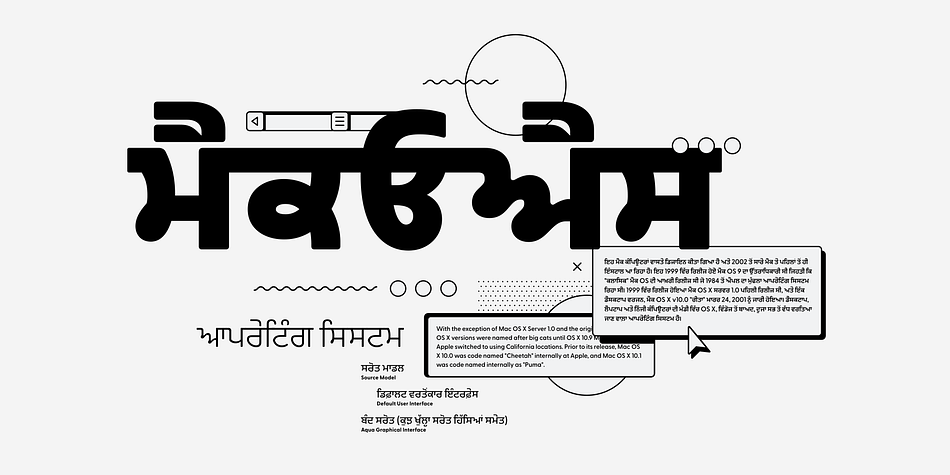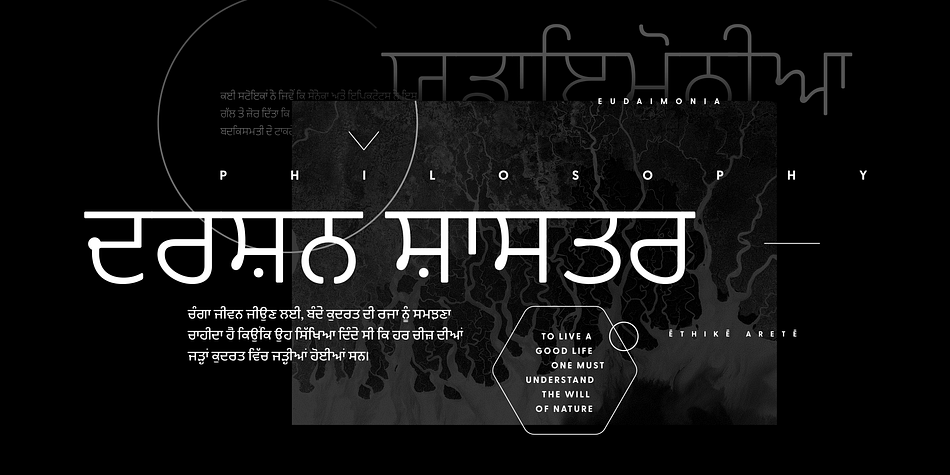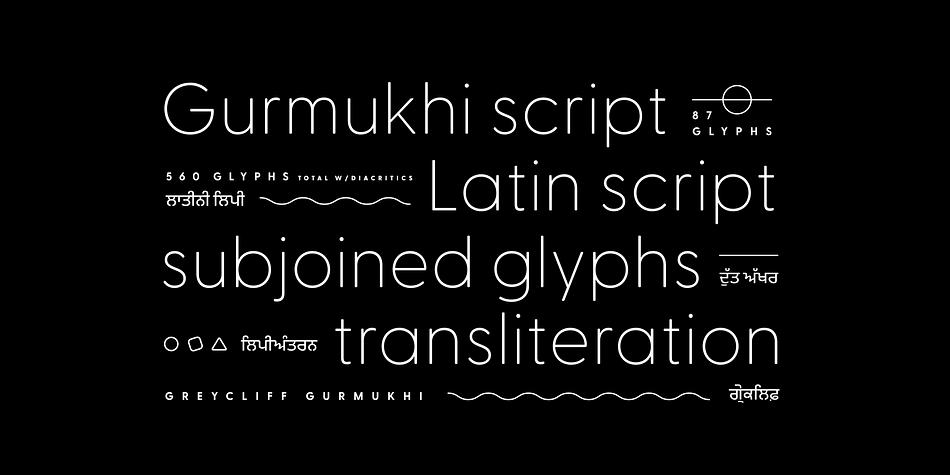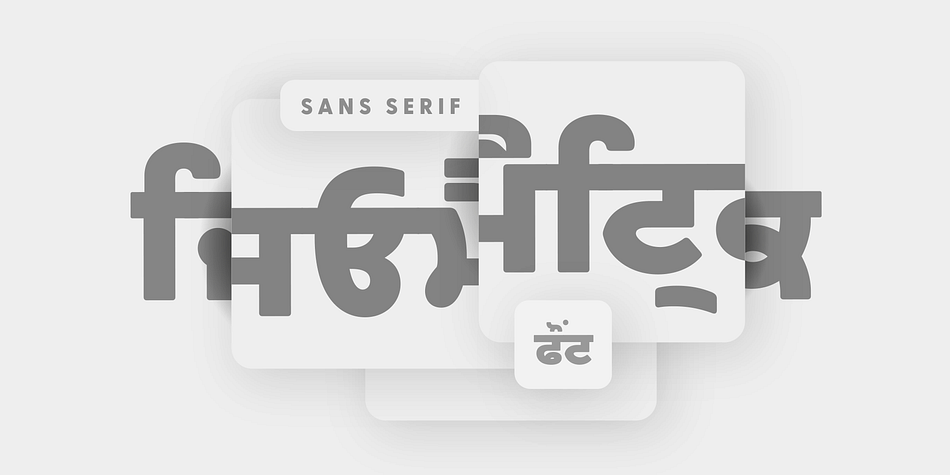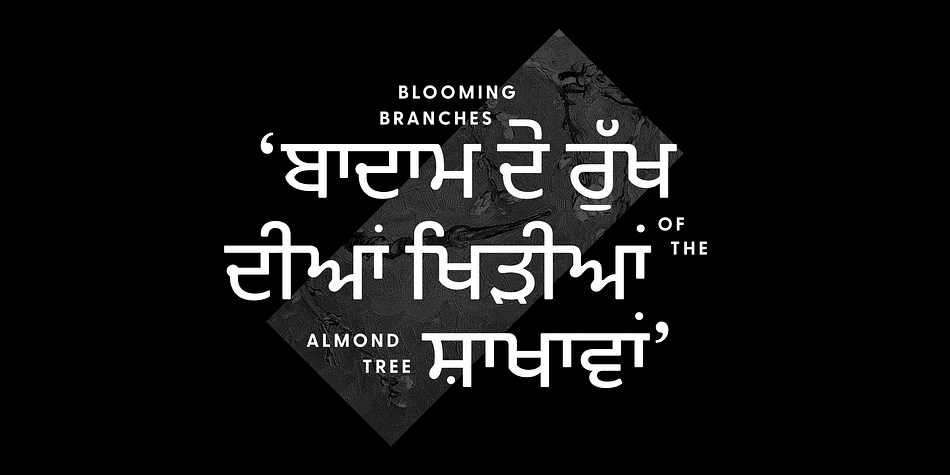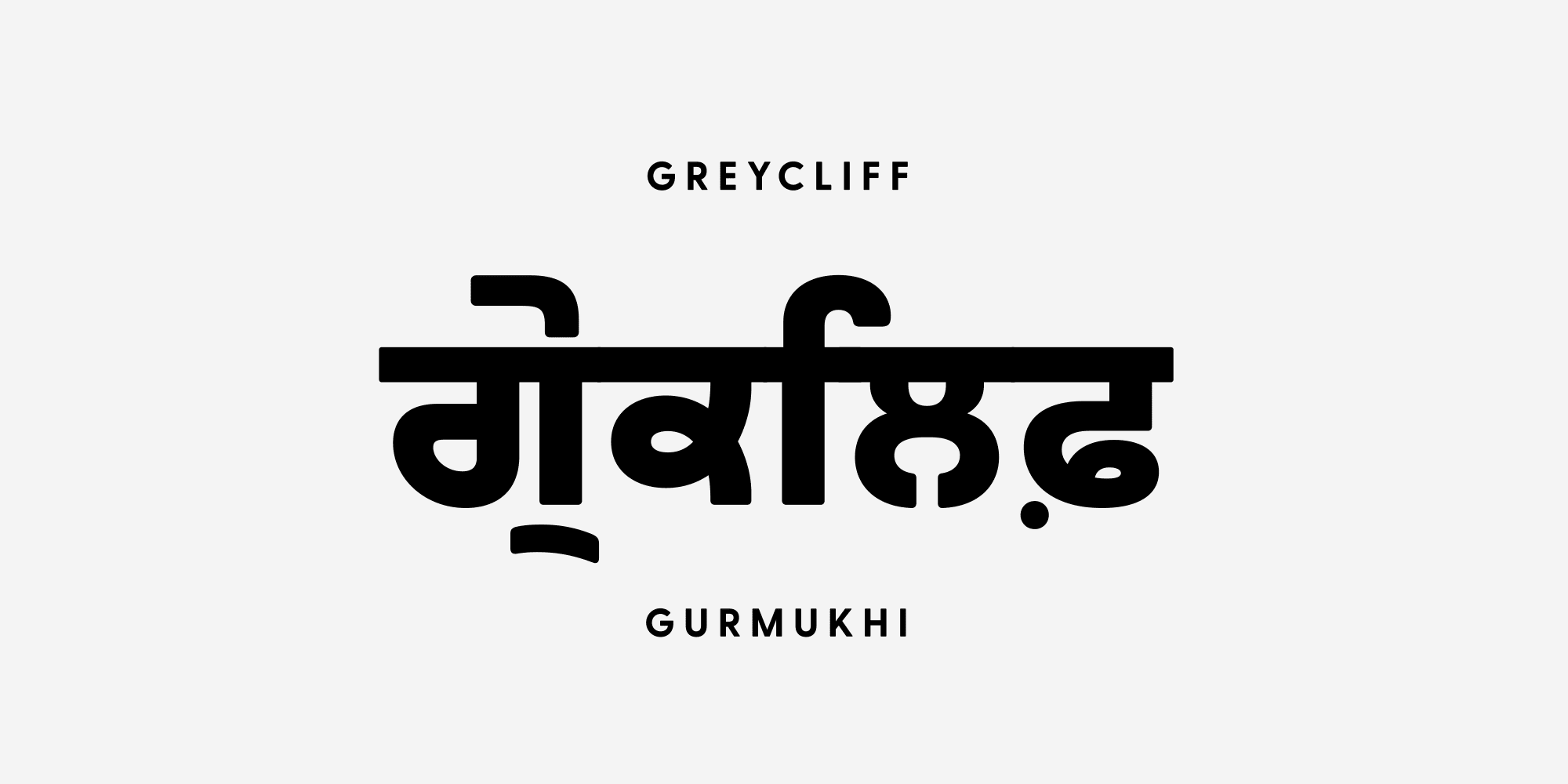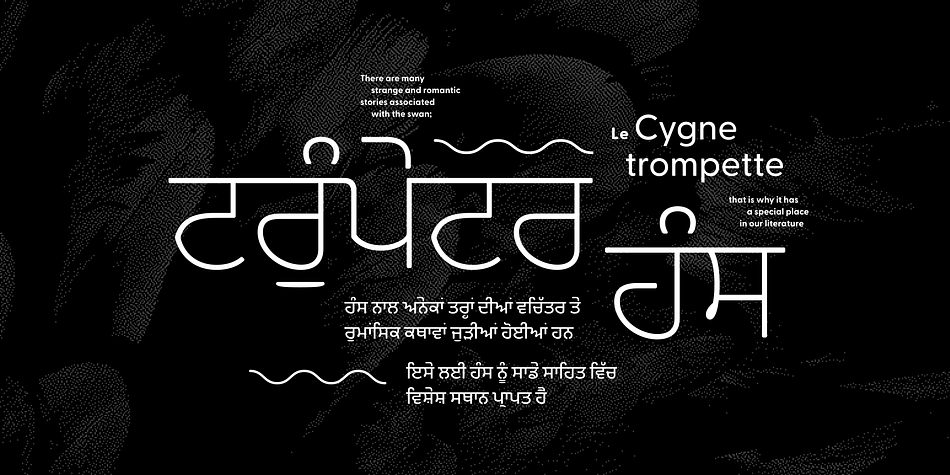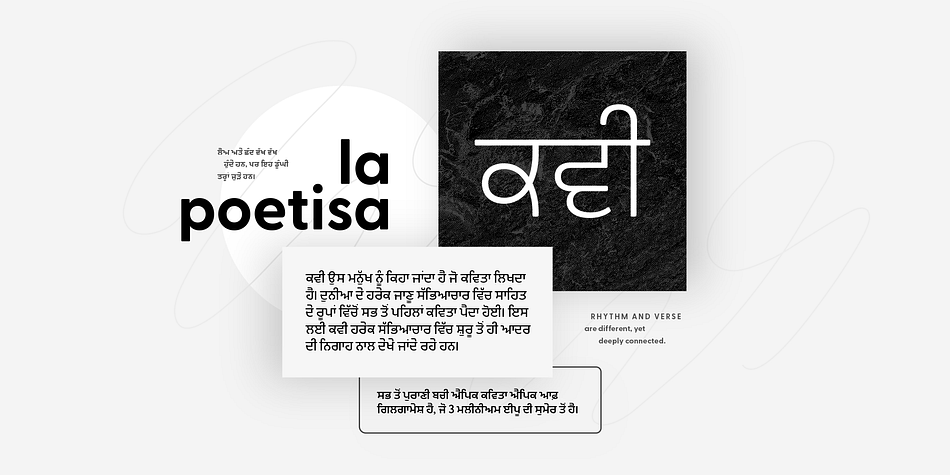
Designed by Connary Fagen, Greycliff Gurmukhi CF is a sans serif font family. This typeface has nine styles and was published by Connary Fagen Type Design.
Rugged, hearty, and warm, the Greycliff CF series is a versatile font family. Covering both Gurmukhi and Latin scripts, Greycliff Gurmukhi CF allows for visually cohesive multiple-script applications in a beautiful geometric sans serif font family. Diacritics and subscript letters are included for Panjabi language support and compatibility. The geometric, near-monoline construction lends a classic durability, tempered by softened edges and vibrant shapes.